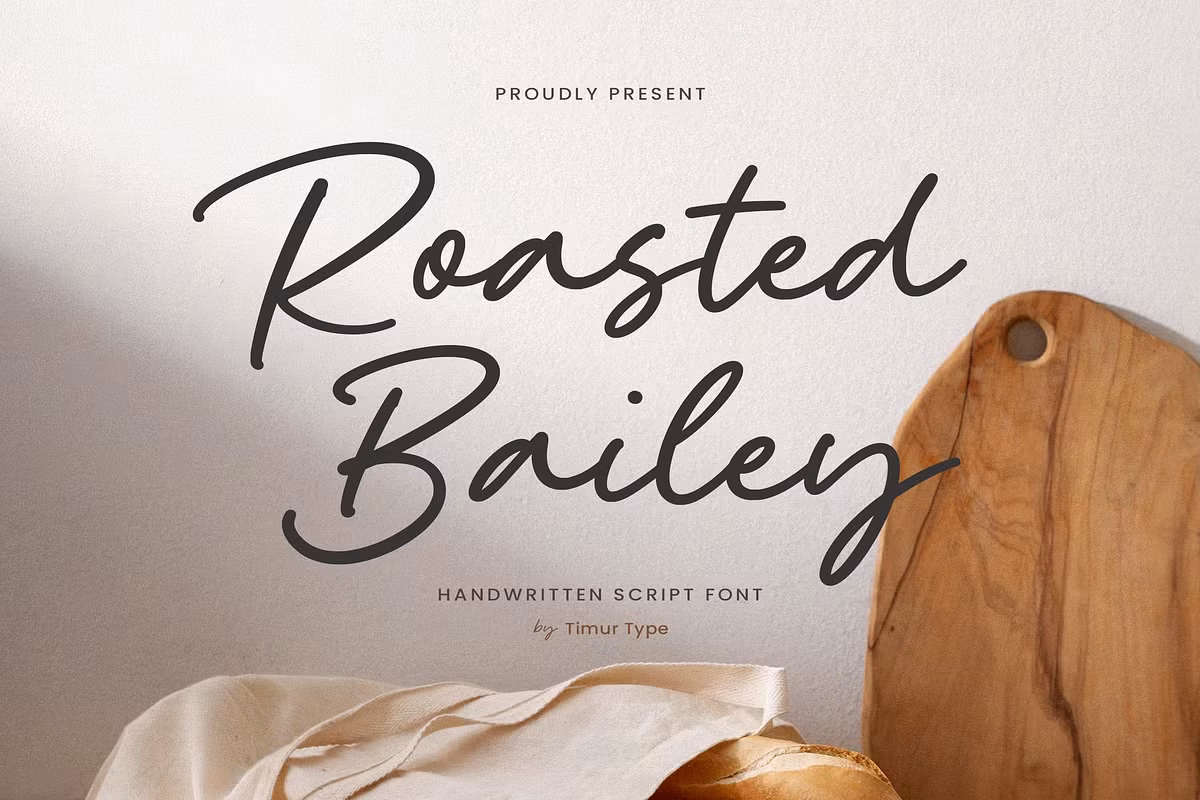
Roasted Bailey – Handwritten Script Font Free Download is a warm and expressive typeface that captures the charm of authentic handwriting. Ideal for logos, café menus, product packaging, and cozy lifestyle branding, this font brings a personal, handcrafted feel to your creative projects.
With its smooth curves and natural flow, Roasted Bailey – Handwritten Script Font Free Download adds a touch of personality and comfort to any design. Whether you're working on a boutique brand or a heartfelt greeting card, this font communicates authenticity and approachability. Try it out in your next mockup to experience its inviting style and handmade appeal—then upgrade to a commercial license when you’re ready to go live.